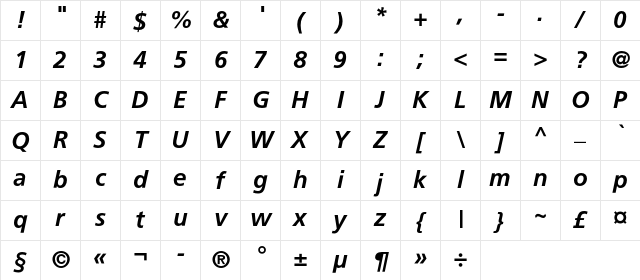
AGForeignerLightC Bold Italic
Design Context for AGForeignerLightC
AGForeignerLightC is a composed and adaptable typeface that performs quietly and consistently across a wide range of design contexts. The slanted form adds forward momentum and visual energy. Its bold stroke weight gives it real presence on the page.
Pro Tip: Use AGForeignerLightC for emphasis, pull quotes, and subheadings where its slanted energy can add rhythm to the layout.